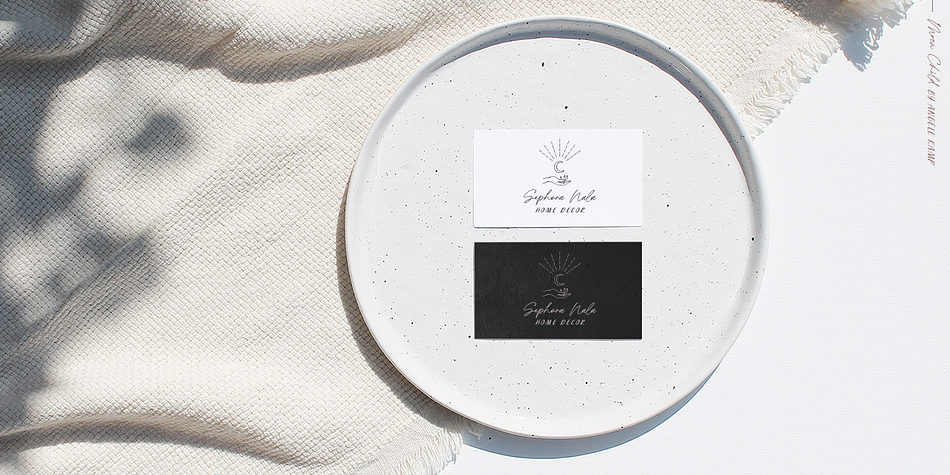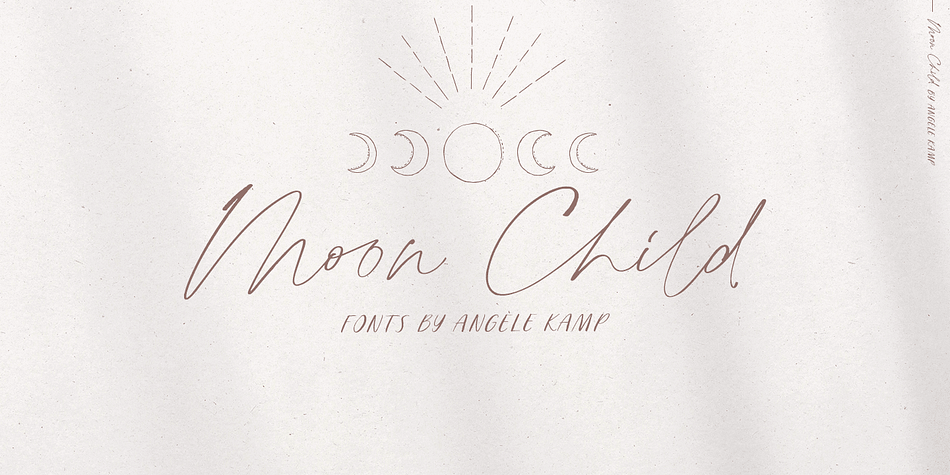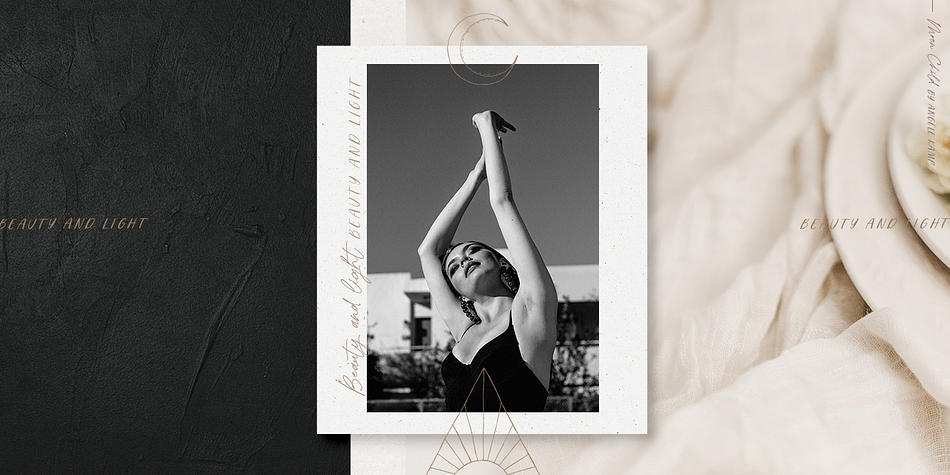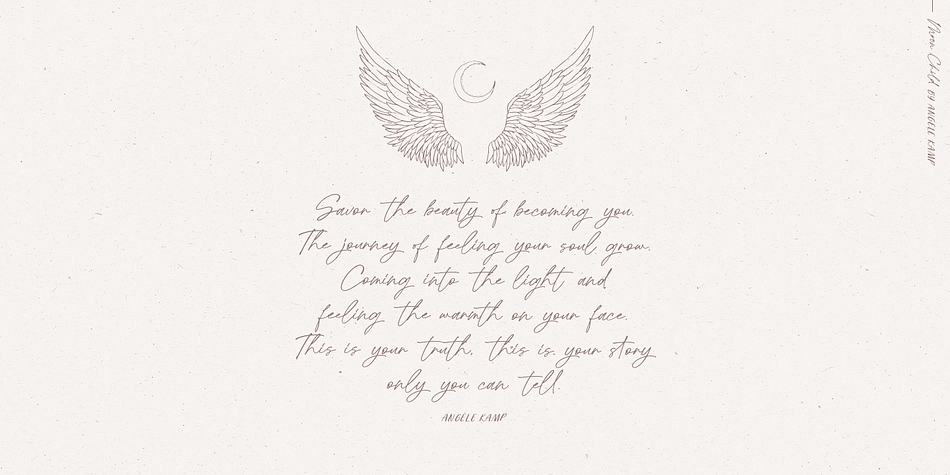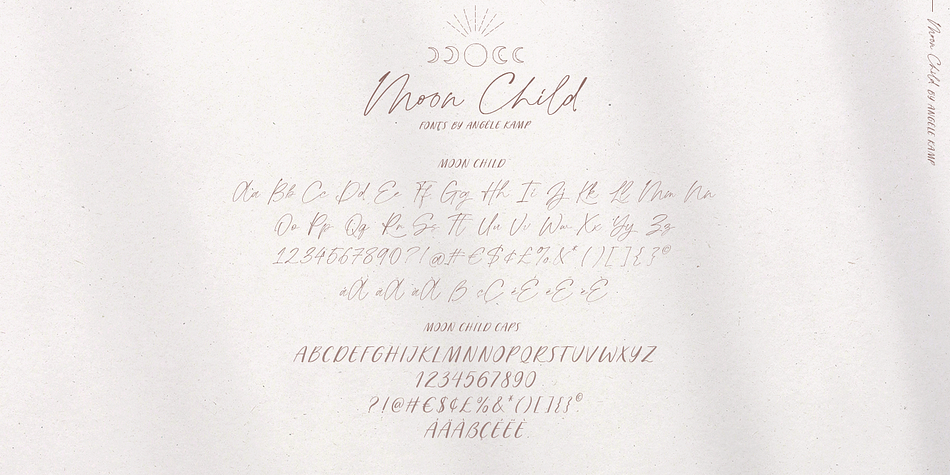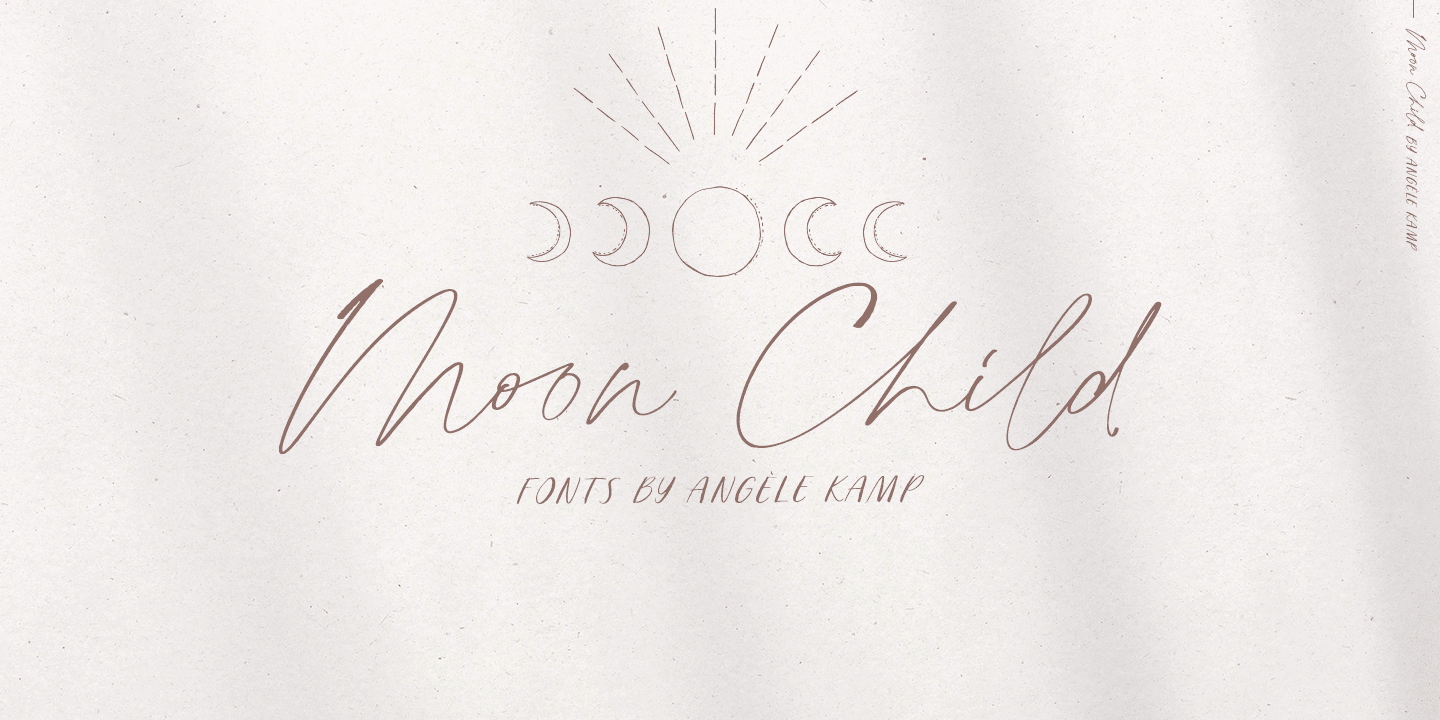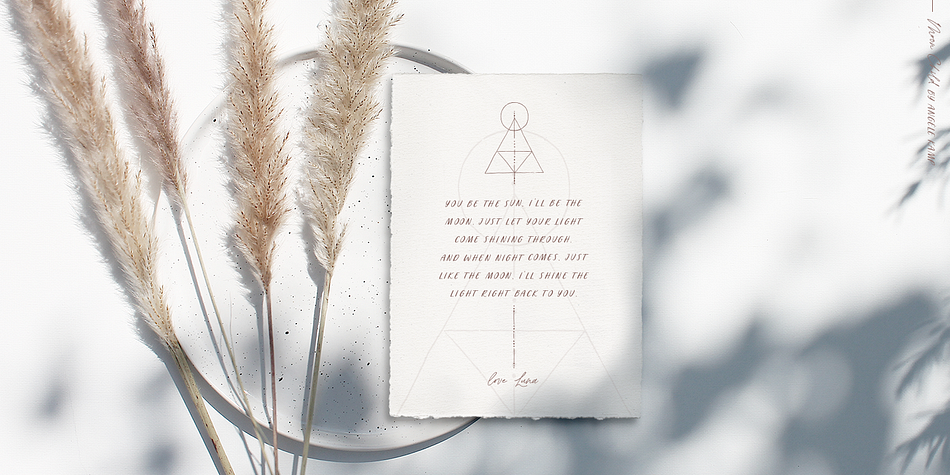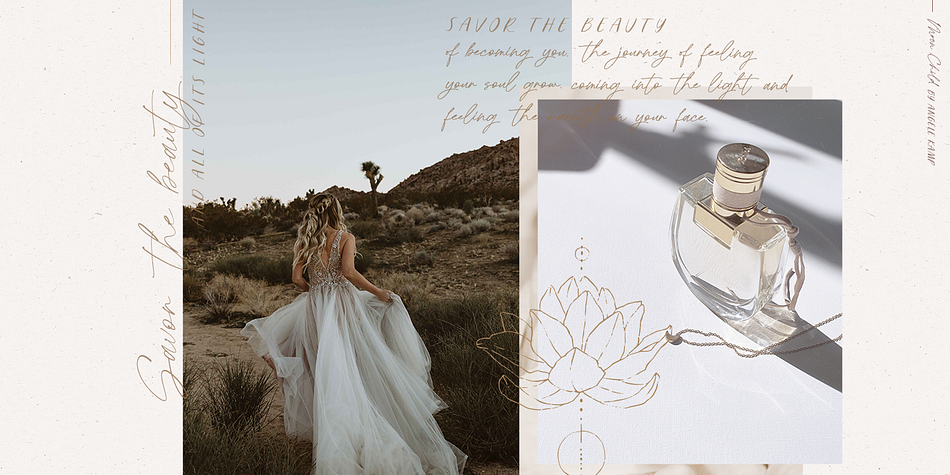
Designed by Angèle Kamp, Moon Child is a hand drawn, modern calligraphy and script font family. This typeface has two styles and was published by Angèle Kamp.
Introducing Moon Child, an elegant collection of fonts & illustrations. This beautiful collection includes two fonts that pair perfectly together and illustrations that will make designing Instagram quotes, websites & invitations effortless.
- Moon Child, an elegant script font that includes ligatures that give you that gorgeous hand-lettered look.
- Moon Child Caps, an all caps font that pairs perfectly with the script font